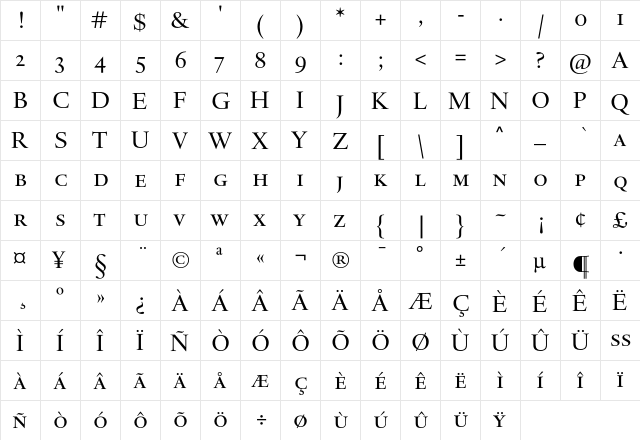
DTL Haarlemmer D Caps Regular
Design Context for DTL Haarlemmer Typeface
DTL Haarlemmer offers clean, dependable letterforms without strong stylistic allegiance, making it a practical choice for designers who need flexibility.
Pro Tip: Use DTL Haarlemmer in both headline and body roles to test its range before committing to a single application.